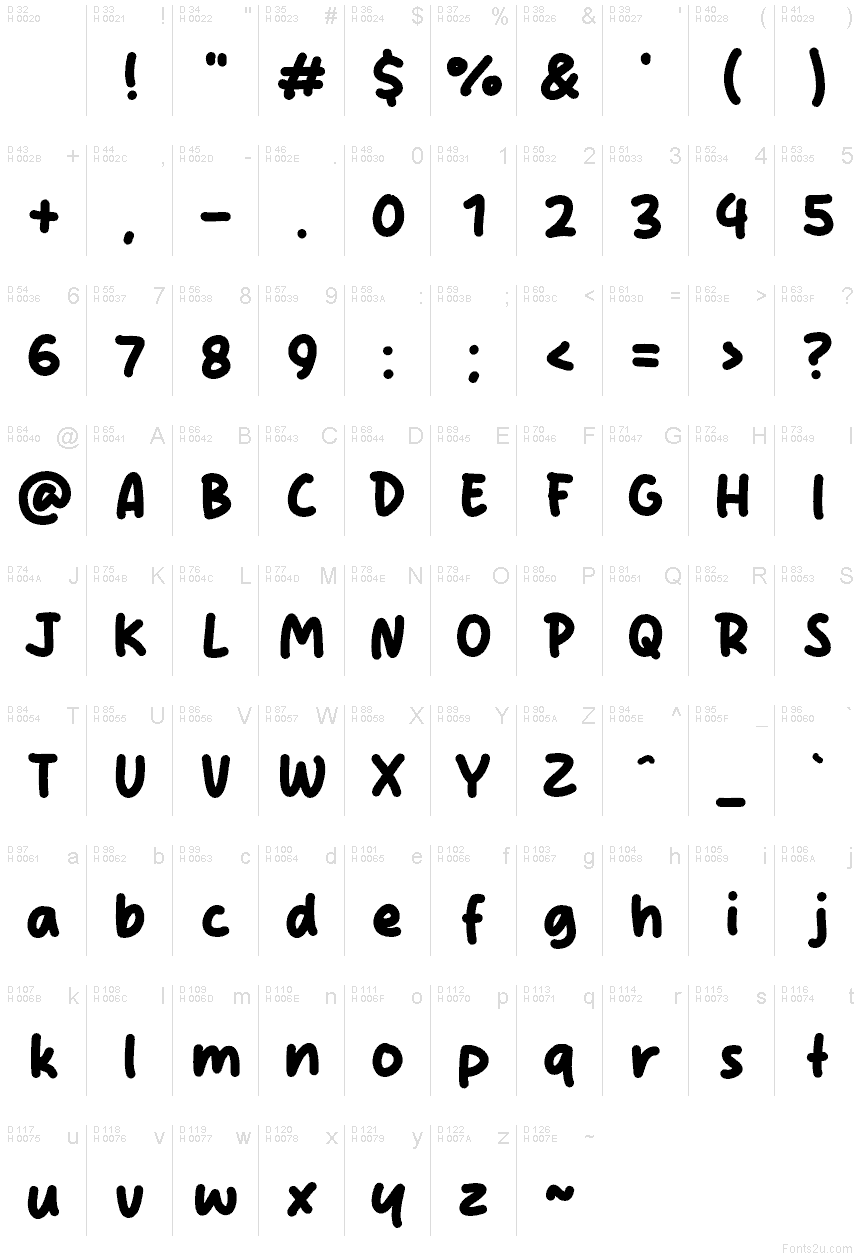
Sugar Fruit
Sugar Fruit font by MJType is a bold, handwritten font that promises to give your designs an approachable and friendly feel. With its casual and contemporary aesthetic, this versatile design tool can work well for a variety of purposes.
Use this free handwritten font for logo design, packaging design, labels, quotes or social media posts. Other ideas include using it on invitation cards, stationery items like notebooks or greeting cards for the people you care about.